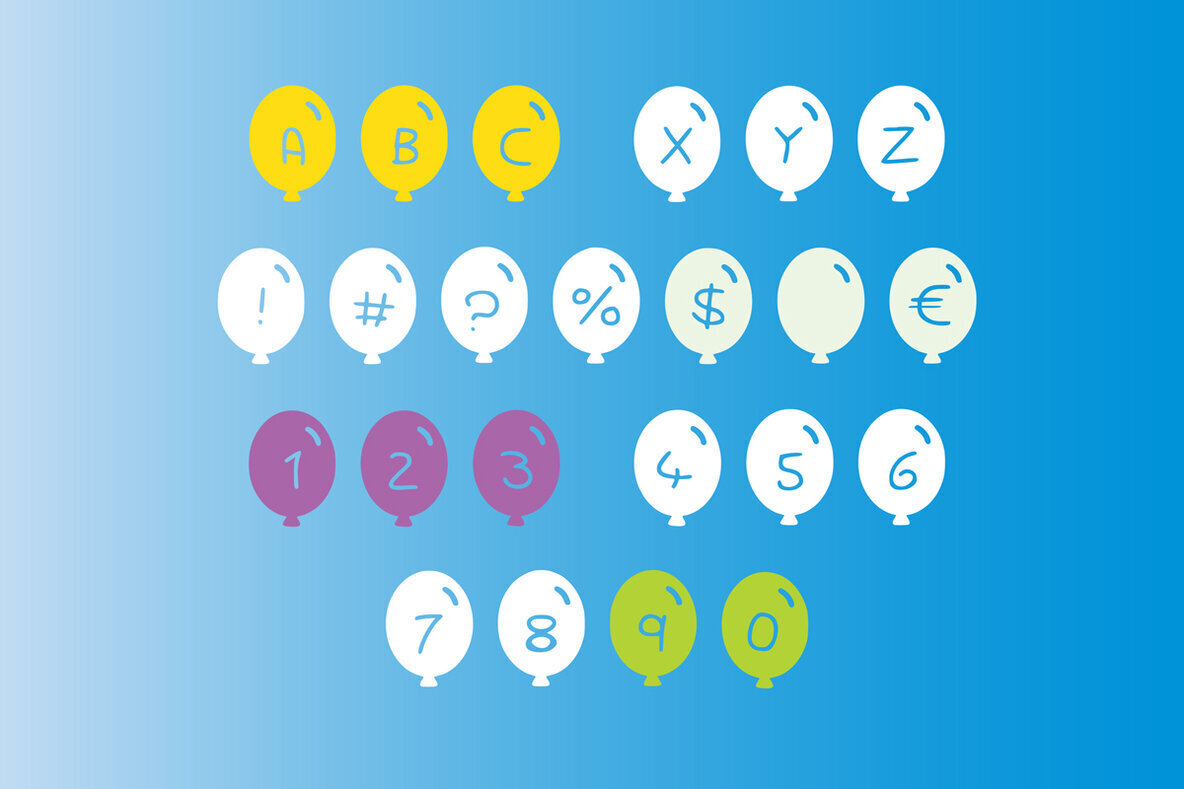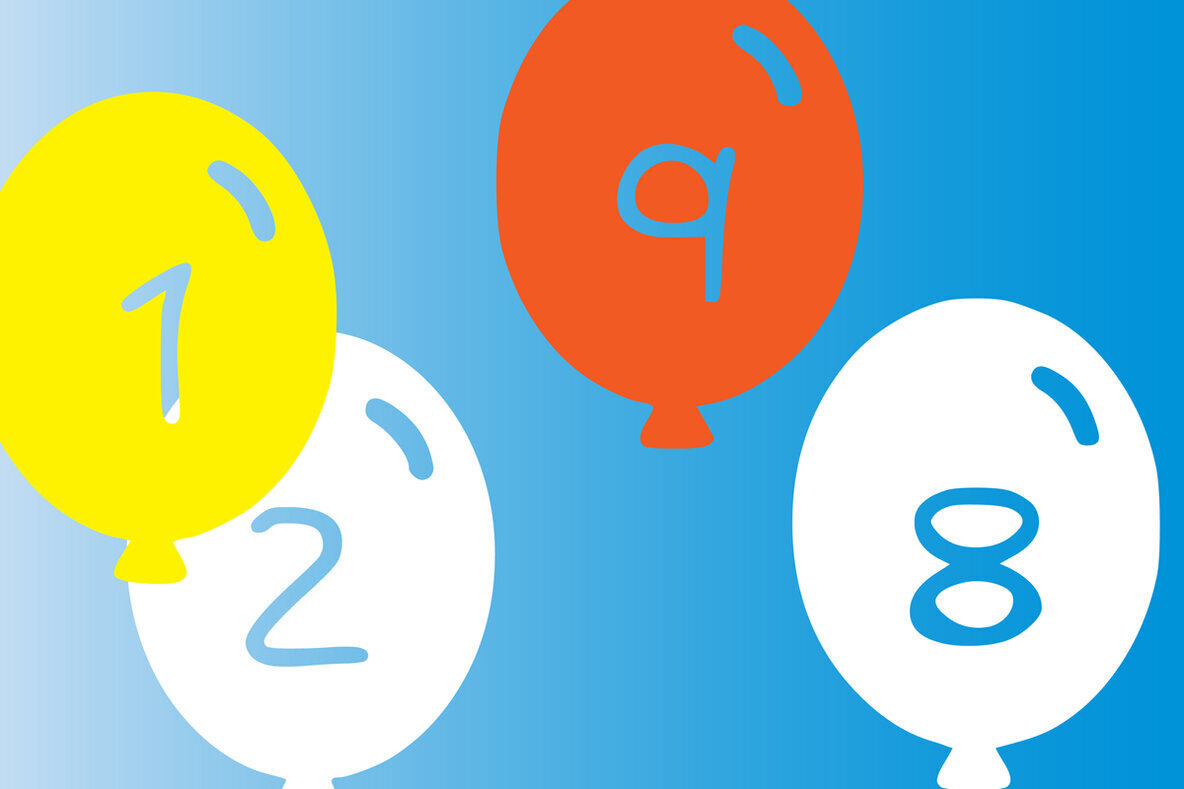
Balloon Play Font
Balloon Play
Balloon Play is a set of fun balloons with a playful, child like font perfect to spell out anything to do with colourful, bouncy balloons! Handwritten with rounded sides make it a friendly and joyful font. Great for schools, home teaching or a craft project.
Uppercase, number and limited punctuation/symbols